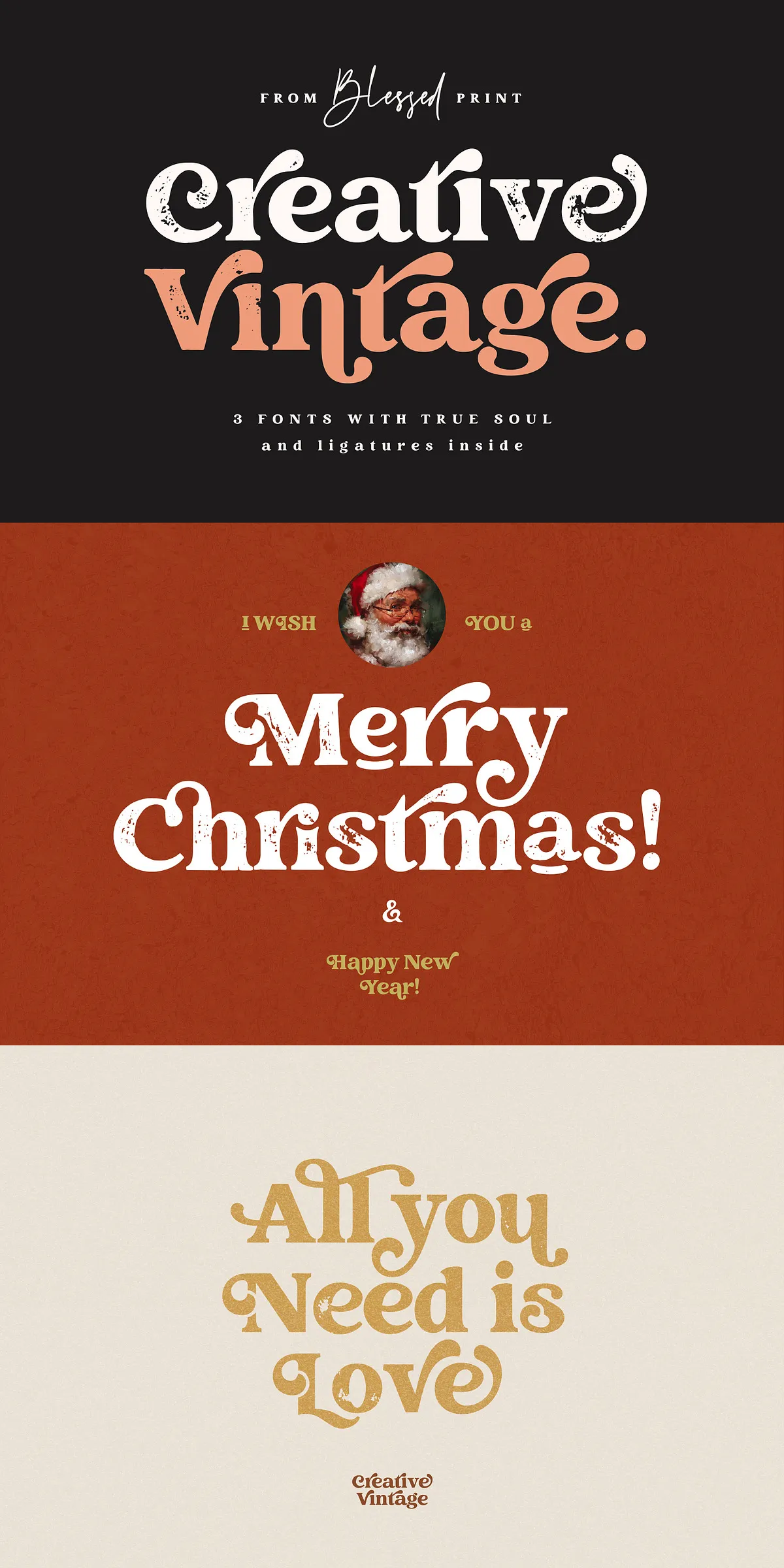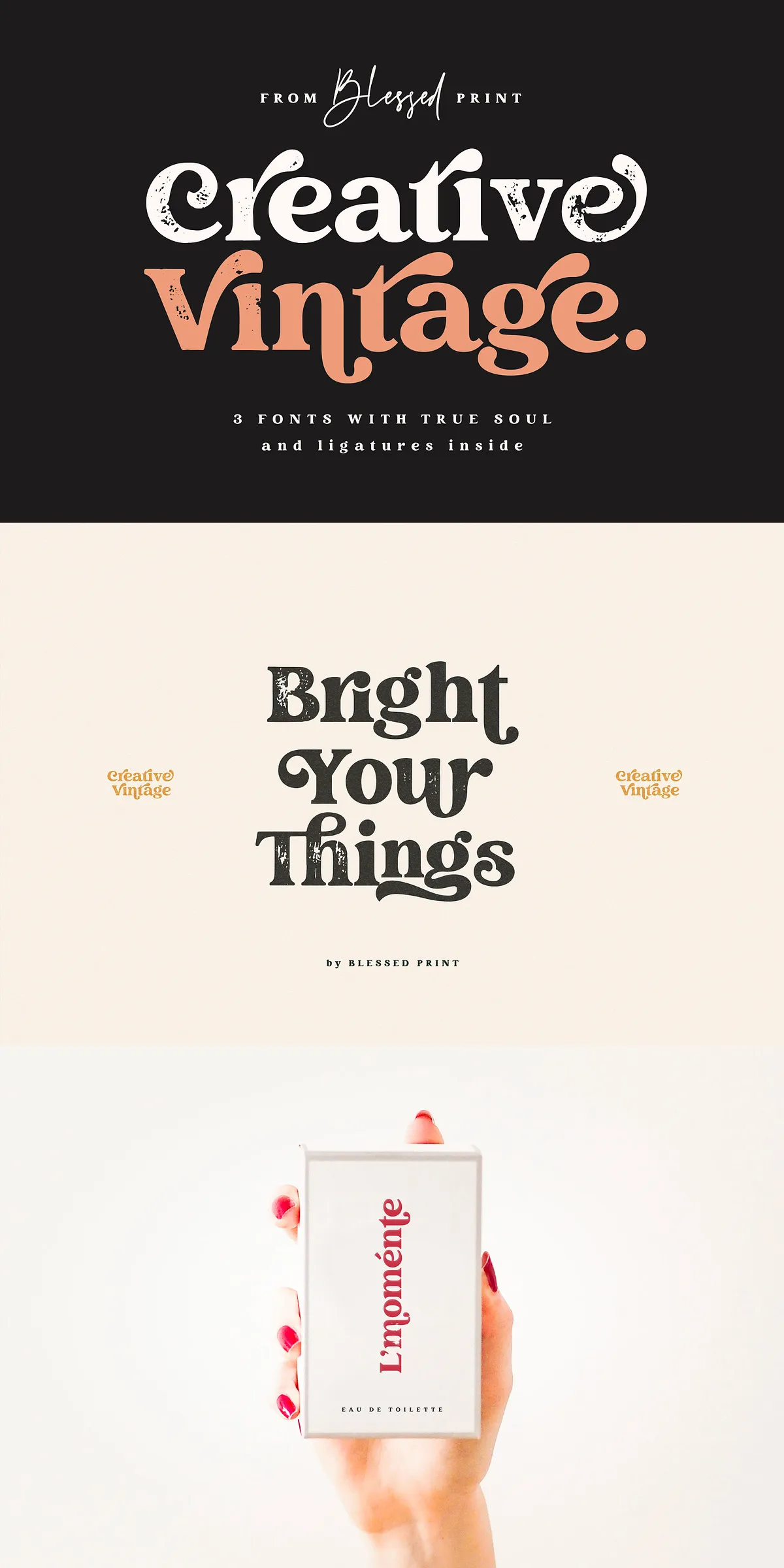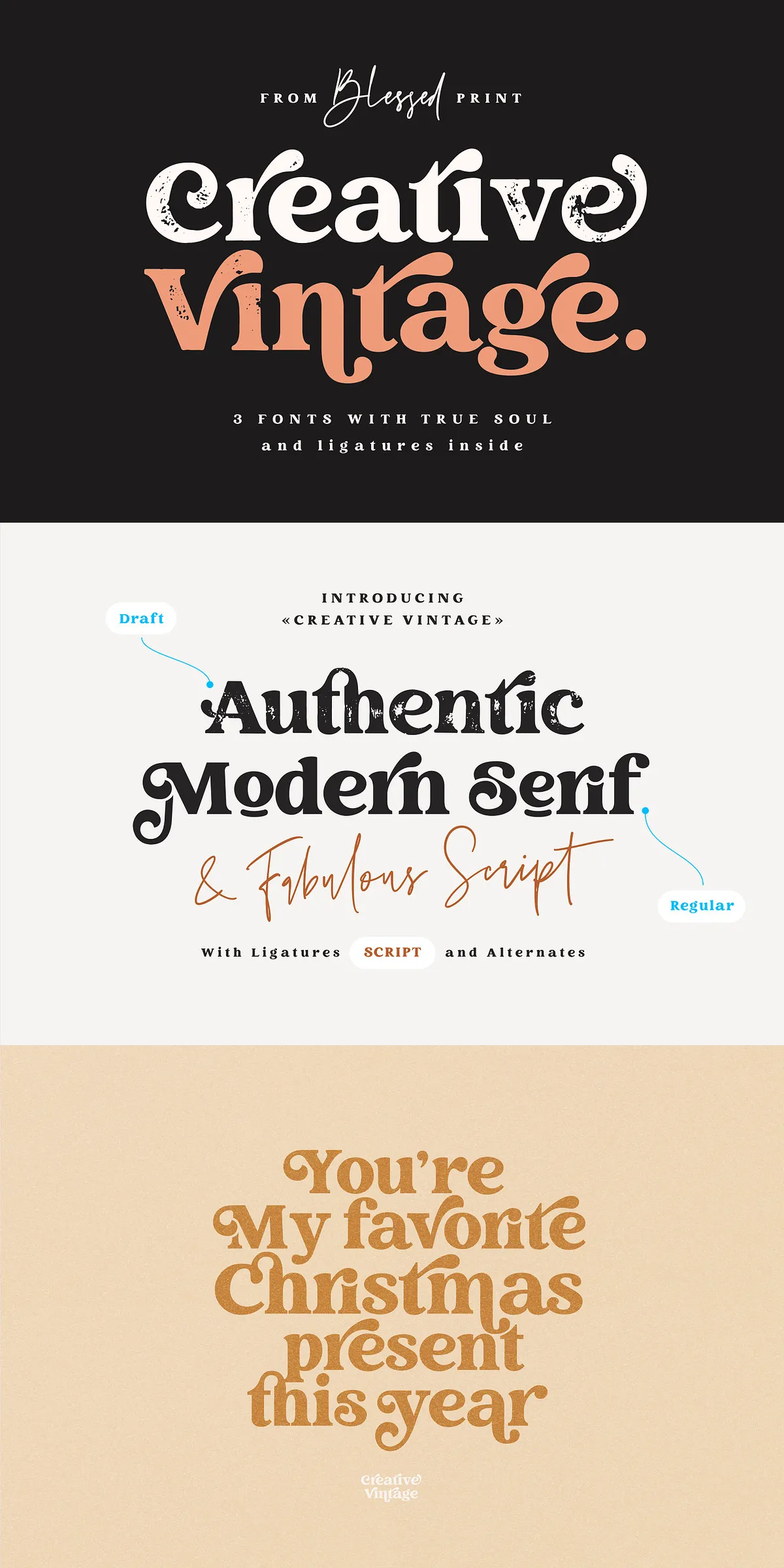
Step into a world where vintage soul meets modern precision. Creative Vintage isn’t just a font — it’s a design movement. This bold, stylish serif typeface blends timeless retro charm with a sharp, contemporary edge, delivering a fashionable look that stands out in any project. Whether you’re crafting a bold logo, designing a music poster, or branding a lifestyle collection, Creative Vintage elevates your work with effortless sophistication.
Why Creative Vintage Dominates Modern Design
This is more than just a serif font — it’s a full creative toolkit with three complementary styles, each built to work seamlessly together. Designed for speed, versatility, and visual impact, Creative Vintage lets you work faster, think bolder, and achieve stunning results with minimal effort.
1. Creative Vintage Regular – Clean, Confident, and Precise
Start with the foundation: Creative Vintage Regular, a polished open-type serif with clean lines, precise kerning, and a refined structure. Every character is engineered for visual harmony. With 669 PUA-encoded glyphs, it offers a rich set of ligatures and stylistic alternates — all accessible with one simple keystroke.
✨ OpenType Power at Your Fingertips: Type a + after any letter (even after a ligature), and instantly switch to an alternate form. Works in Templett, Canva, Corjl, Adobe Creative Suite, Figma, and more — no extra setup required.
2. Creative Vintage Draft – Imperfectly Perfect, Relentlessly Stylish
Want a shabby, handcrafted edge? Creative Vintage Draft delivers the perfectly imperfect look. This version features chunky, textured strokes and deliberately uneven edges, mimicking the vibe of a vintage typewriter or hand-stenciled sign — all while maintaining identical glyph names, kerning, and ligature compatibility with the Regular.
💥 Instant Style Switch: Swap between Regular and Draft with a single click. When you type + after a character, alternates appear automatically — no need to retype or reformat. It’s design agility at its finest.
3. Creative Vintage Fabulous – Sleek, Bold, and Elegant
Elevate your project with Creative Vintage Fabulous, a modern calligraphy font that balances precision and flair. With three weights — Thin, Normal, and Bold — it gives you full control over hierarchy and drama.
🖋 Advanced OpenType Control: Use digits after a letter (e.g., a1, a2) or wrap text in [ and ] to trigger long ligature lines and elegant slash strokes. These are not just decorative — they’re built into the font for professional results.
Designed for Global Creatives — Full Language Support
Creative Vintage isn’t just stylish — it’s inclusive. With full support for 24 Latin-based languages, including:
- Danish, Dutch, English, Estonian, Finnish, French, German, Hungarian, Italian, Luxembourgish, Northern Sami
- Norwegian Bokmål, Norwegian Nynorsk, Polish, Portuguese, Romanian, Spanish, Swedish
- Swiss German, Turkish
No matter your audience, your message will be clear, beautiful, and culturally accurate.
Transform Your Projects — From Concept to Creation
Use Creative Vintage to:
Build Branded Campaigns with Instant Identity
Whether it’s a pop-up shop, coffee brand, or indie fashion label, Creative Vintage gives your project an instant visual heartbeat. Its unique blend of retro style and modern clarity ensures recognition and memorability.
Design Eye-Catching Digital Content
Perfect for social media, web headers, landing pages, and email newsletters. The OpenType features let you animate style changes in real time — no extra work, maximum impact.
Create Editorial & Packaging That Tells a Story
Perfect for magazines, zines, product packaging, and book covers. Its elegant alternates and varied weights let you craft layouts that breathe with personality.